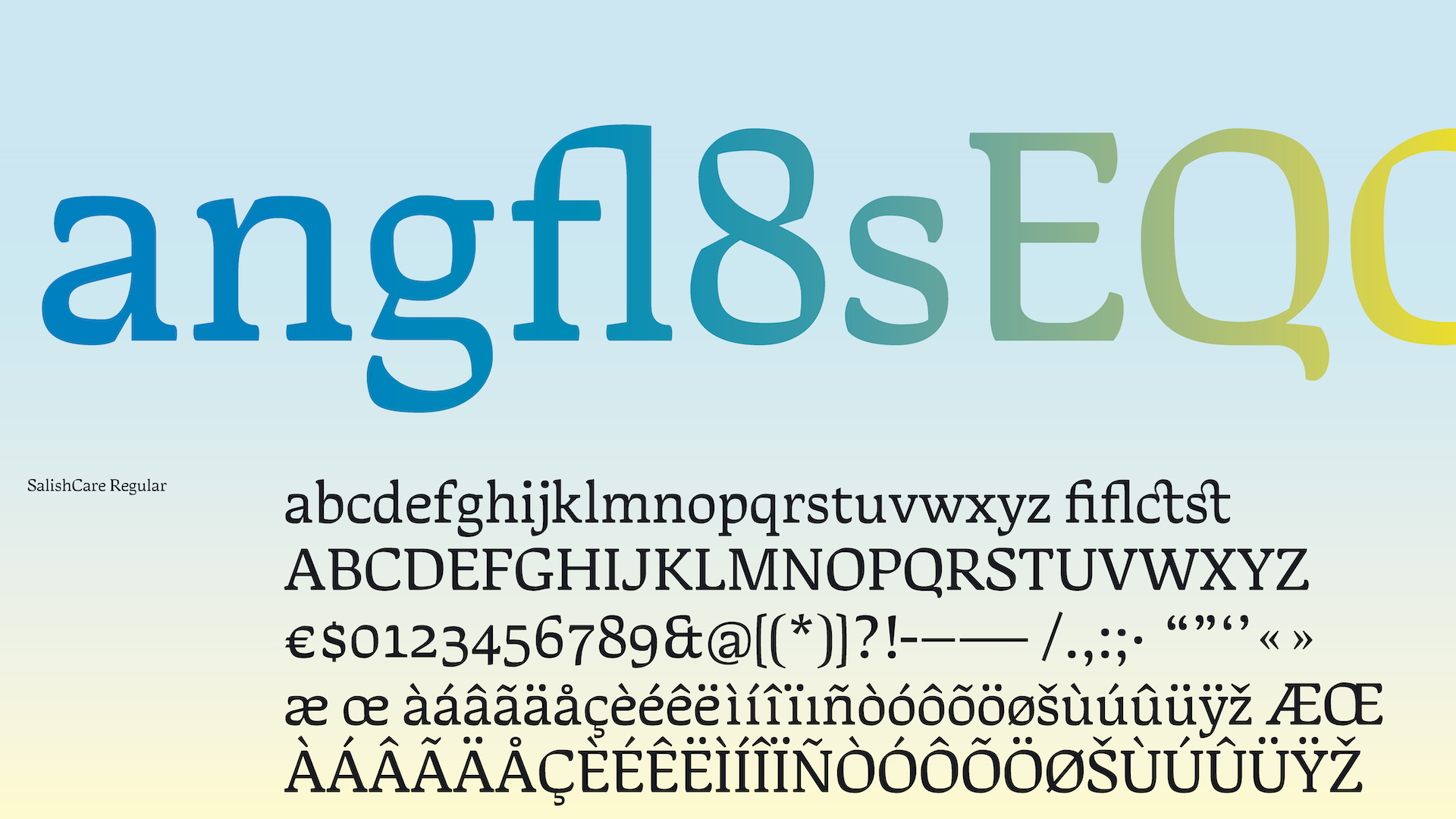
SalishCare
A. Key learning from typeparis22
1. “Just Do. Don’t think”. – JFP.
I think there are some magic to the process of drawing. The more we draw, it unconsciously takes our mind to new ideas. Before coming to TypeParis22, I usually plan my design process from start to finish. This approach works. However, the “chaotic” approach in TypeParis, due to schedule and the amount of materials to learn, also works. It is opposite spectrum way of working. It taught me that not everything needs to be solved in sequence. Working on multiple problems simultaneously leads to unpredicted ideas.
2. Make a Decision and Move On!
Working with various TypeParis instructors and guest critics, I’ve received various feedback that were consistent, but also contradicting. It was not about my design being right or wrong. Well, there were some that were fundamentally wrong. However, it was about having stance on your design’s point of view. Talking to various instructors, they have their own way of designing. And I think that applies to all of us. Believe in what I’m designing.
B. Typeface Salishcare
Typeface SalishCare is inspired to connect patients and their hospital experience at Native American healthcare organizations located in the Pacific Northwest region (United States). The objective is to provide sense of professional care and connect with the Native American cultures.
Step 1: Research . Salish Culture
People of Salish are indigenous to the American and Canadian Pacific Northwest, identified by their use of the Salish languages which diversified out of Proto-Salish between 3,000 and 6,000 years ago. The Salish (Salishan) people are in 4 major groups: Bella Coola (Nuxalk), Coast Salish, Interior Salish, and Tsamosa who each speak of the Salishan languages.
With time I would investigate and research the Salish writing to base a typeface design to reflect their culture.
However, for TypeParis22 project, the typeface is inspired by paintings and sculptures of the Salish. The artwork possesses characteristics of geometric shapes with organic shapes, broad strokes, and touch of fine terminating points.
Form and shape studies: Capture qualities of welcoming and care
During the visit to Typofonderie office, Jean François Porchez provided 2 typeface examples: Clearface and Poster De Vinne. Discussing with Jean François and Mathieu Réguer, I’ve learned the following qualities will bring qualities of welcoming and care.
Open Counters:
Big open counters provide sense of openness and air to the texture of the text.
Low Contrasts:
Low contrasting lines tends to provide sense of stability.
Step 2: Studies
Based on the above research, my goal was to combine the above research findings and reflect them into letter forms.
I’ve studied the forms found in Salish artwork and explored various stroke styles. Studies included drawing vertical and horizontal strokes, connection points, and stroke terminals. These studies started to inform key features of letter strokes, which included broad-should-like-widths, square yet rounded corners, and carving-like cuts.
The next study included tracing the counter spaces of the Clearface and Poster De Vinne typefaces to qualities of the open counters. This was key to capturing the sense of welcoming and care that healthcare experience provides.
Step 3: Design
With the help of the infamous French tracing papers, the task was to capture and combine the 2 characteristics of Salish artwork and typefaces Clearface and Poster De Vinne. After various iterations of the infamous letters, “n”, “p”, “e”, and “f” then “t”, “o”, “r”, “s”, “y”, and “g”, I started to capture the 2 characteristics.
After the key features were captured, it was time to apply the learning from the Humanistic letter exercise.
1. Structure: Letter structure is the key to success of a typeface, and it is the feature that provides the personality. Not the serifs.
2. Modular System (Stroke): Modular strokes are key to creating a sense of system in letter form. By sharing strokes from “p” and visually applying to letters of “c”, “e”, “d”, “b”, “q”, “o” and my favorite “g”, they start to make visual relationships. The second modules are the stroke ending of “c” are applied to “f”, “r”, “j”, “s”, and “y”.
3. Modular System (Counter space): Modular counter space are also key discipline to make a beautiful group of letters. The round counter space of “e”, “c”, “o”, “a”, “b”, “p”, “d”, and “q” needs to relate. The counter space of “n”, “m”, “h”, and “u” as well as diagonal letters of “v”, “y” “w”, “x”, and “z”
4. The lower case “t” must have the counterspace to the right of the stem to be true to the history of letter forms.
Step 4: Critiques and Redlines
After the base of the design was established, completing the typeface was learning the details and techniques from our instructors Jean François, Mathieu Réguer, Malou Verlomme, David B?ezina, Marc Rouault, Gina Serret, Julie Soudanne, and various visiting designers.